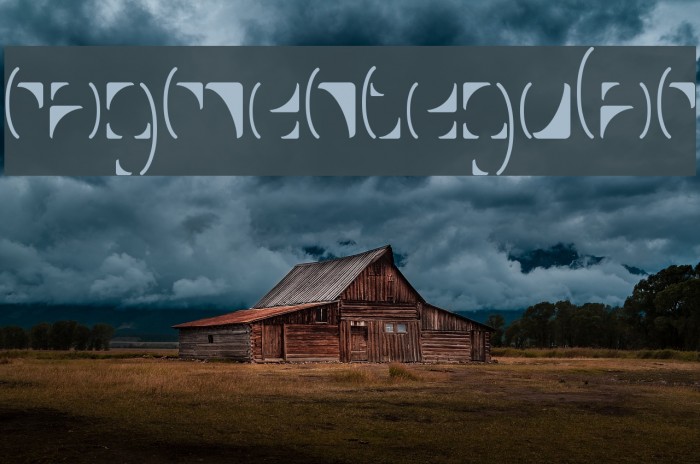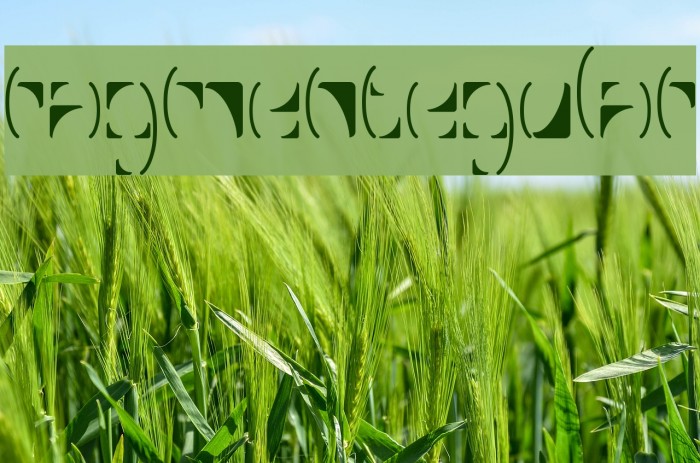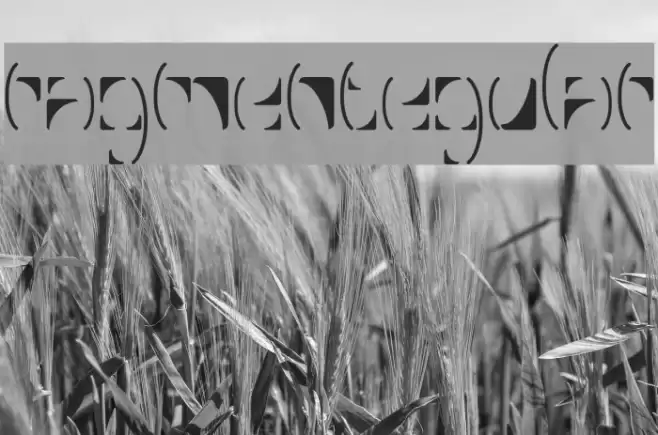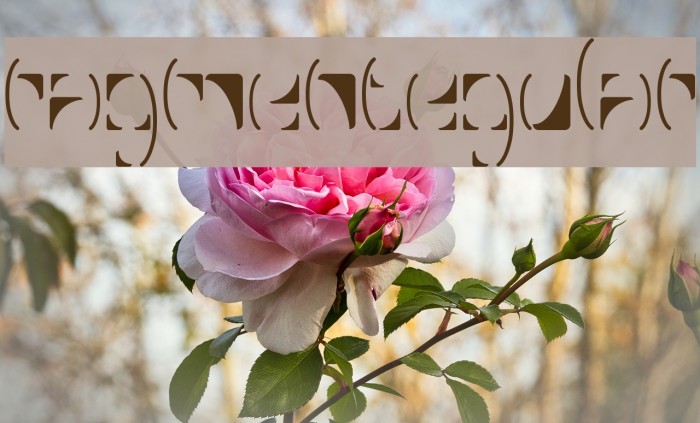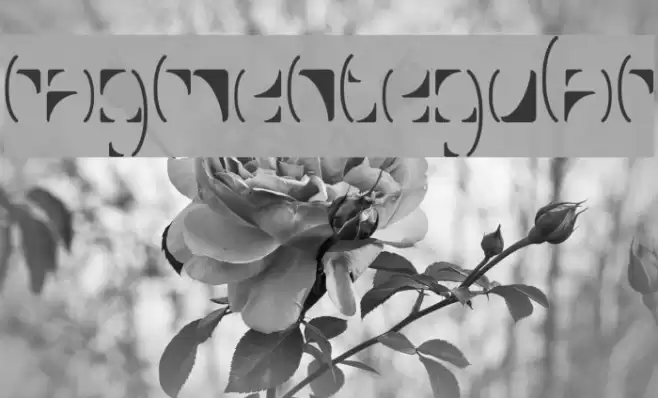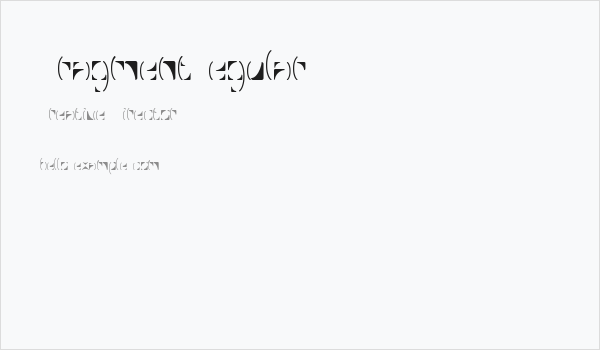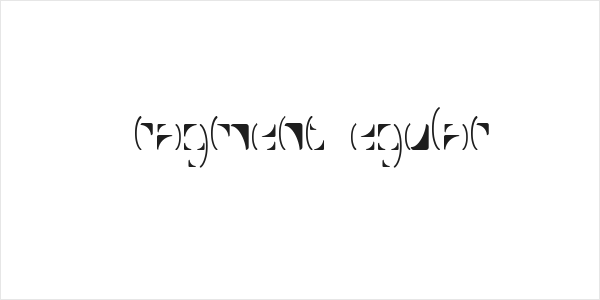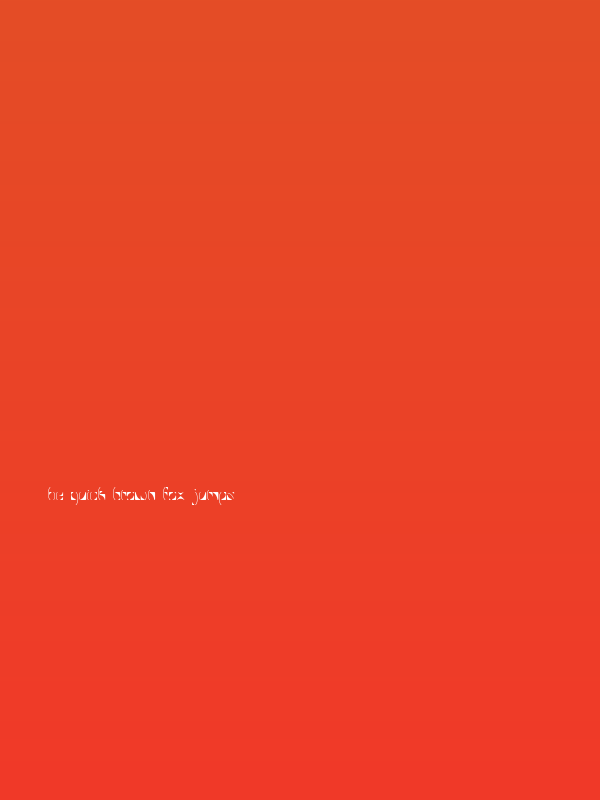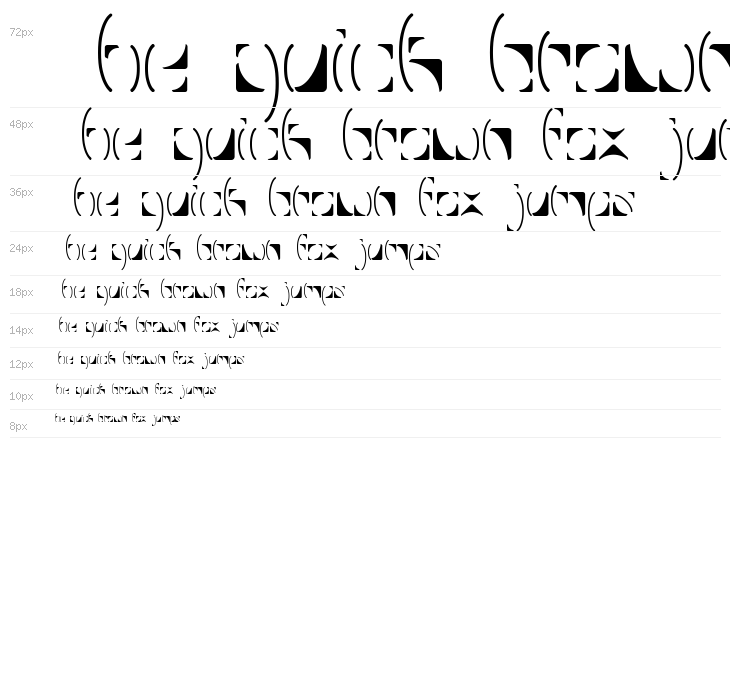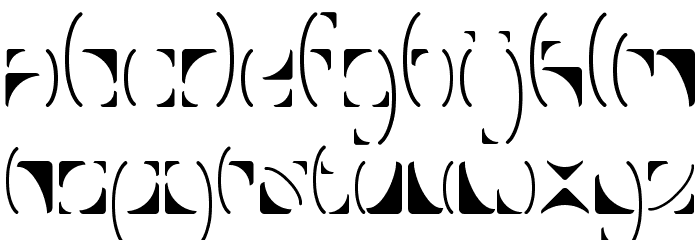
FragmentRegular Font
This font presents a highly stylized and fragmented design, where each character is composed of disjointed segments that create a unique visual effect. The letters are broken into distinct parts, giving an impression of incompleteness while maintaining legibility. This artistic approach results in a modern and abstract appearance, suitable for creative and avant-garde projects. The fragmented nature of the font adds a dynamic and intriguing element, making it stand out in any design context.
Ryan Tempro
| Overall Style | Modern, Abstract |
| Use Case | Logos, Headlines, Artistic designs |
| Proposed Projects | Ideal for modern art projects, abstract designs, branding for creative industries, and experimental typography. |